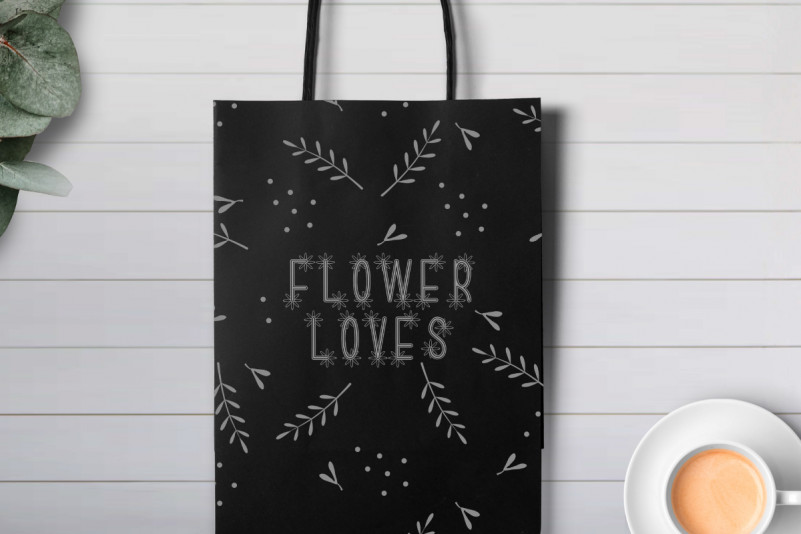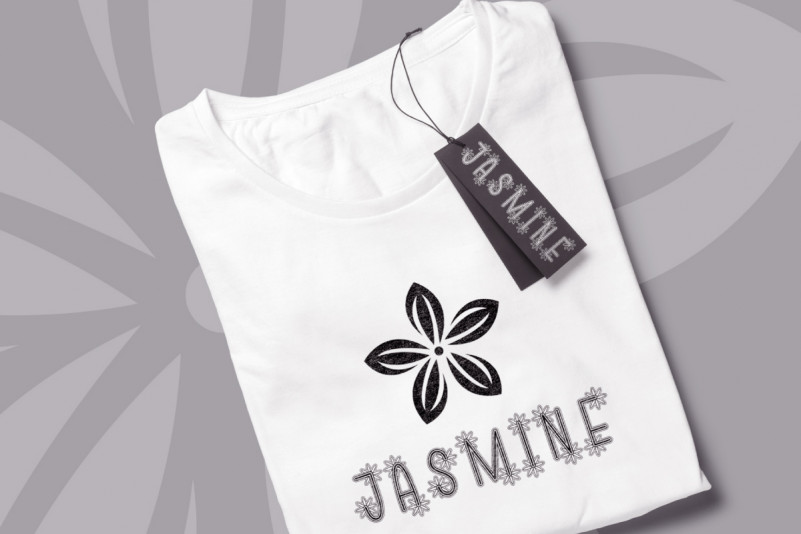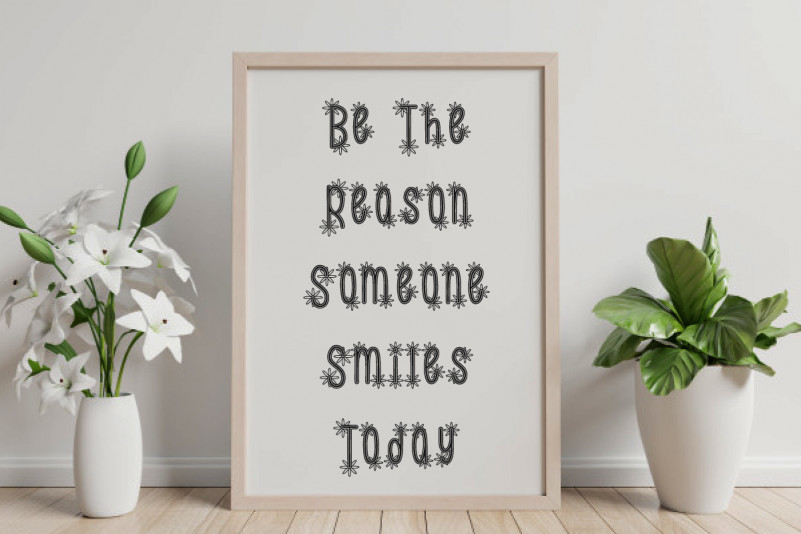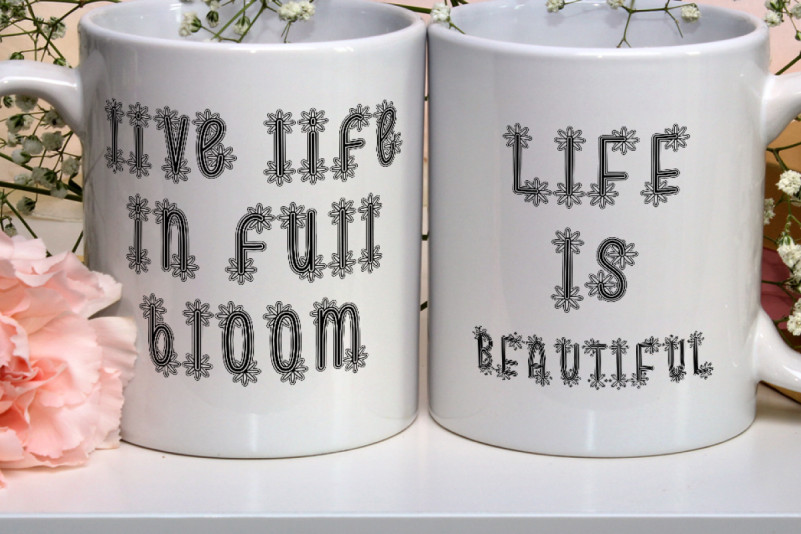
Little Jasmine Font
Little Jasmine Display Font
This is a unique display font with special flower look shapes. This font has futuristic and techno style that looks stunning in just about every context. Use it for logos, print, ,headline, body text, and more! Inspired from games tittle and spaceship news, Little Jasmine Font includes full set of Uppercase and Lowercase Basic Characters, Numerals and Punctuation. Little Jasmine will be great for Use it for any project that needs a unique, special look! Perfect for branding, labels, headline, posters, websites and so much more!